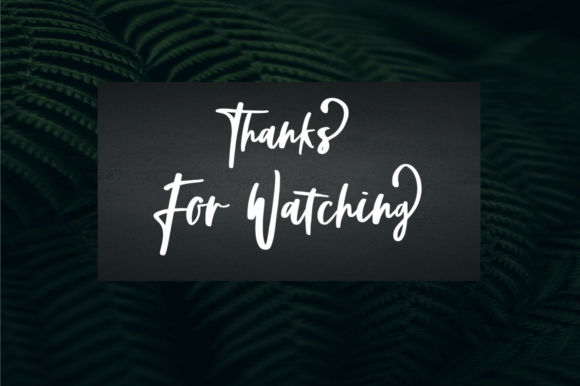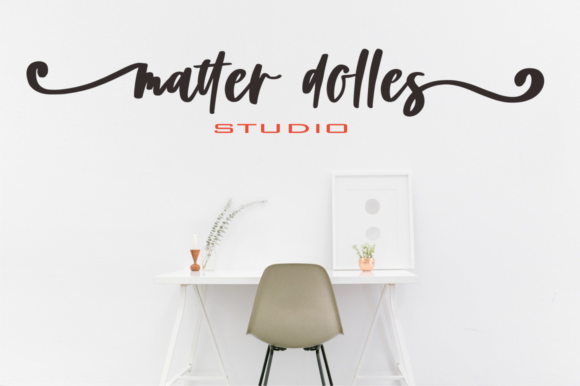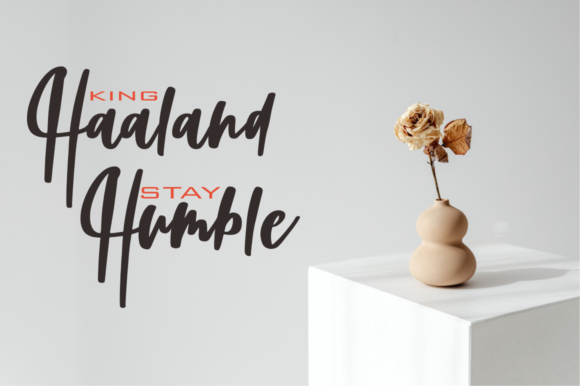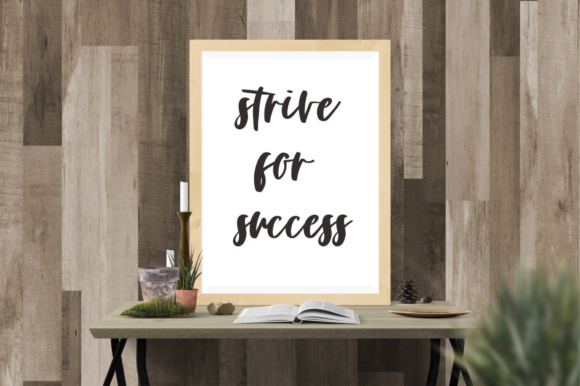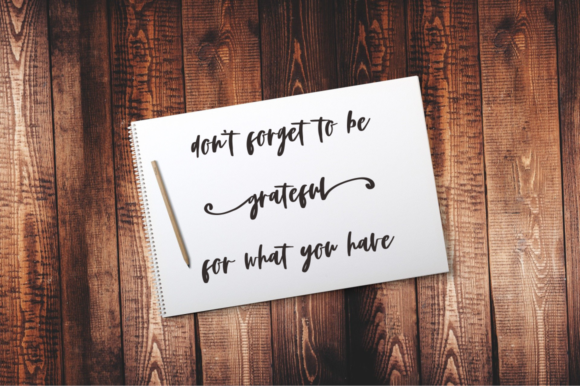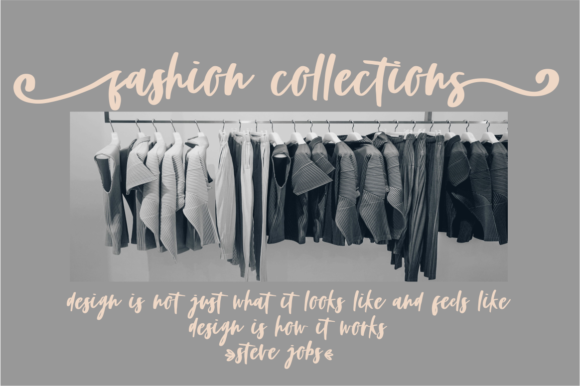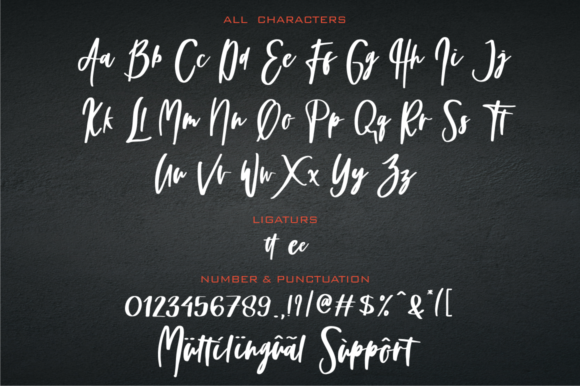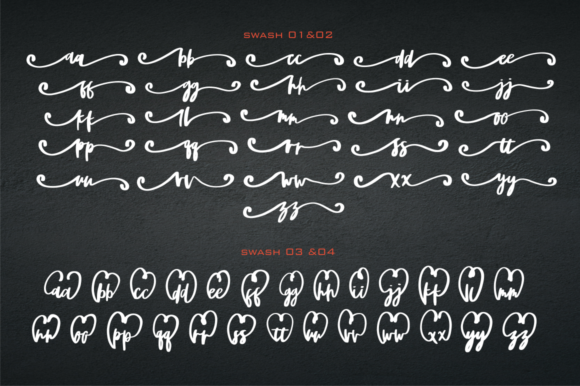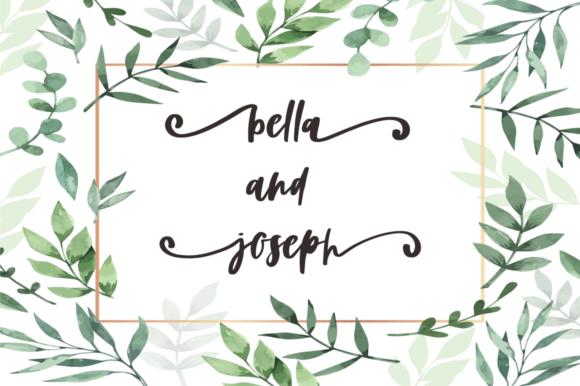
Holla Romansa Font
About Holla Romansa Font
Holla Romansa is a delicate and flowing script font. It is ideal for wedding invitations, weddings, brand names, wall hangings, romantic movie titles, valentines or Christmas greetings.